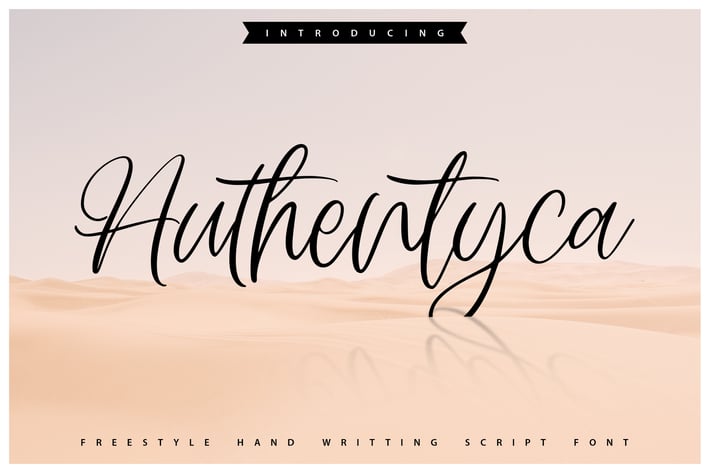
Authentyca | Freestyle Handwritting Script Font
Authentyca | Freestyle Handwritting Script Font with a calligraphy style, So beautiful on invitation like greeting cards, branding materials, business cards, quotes, posters, and more!